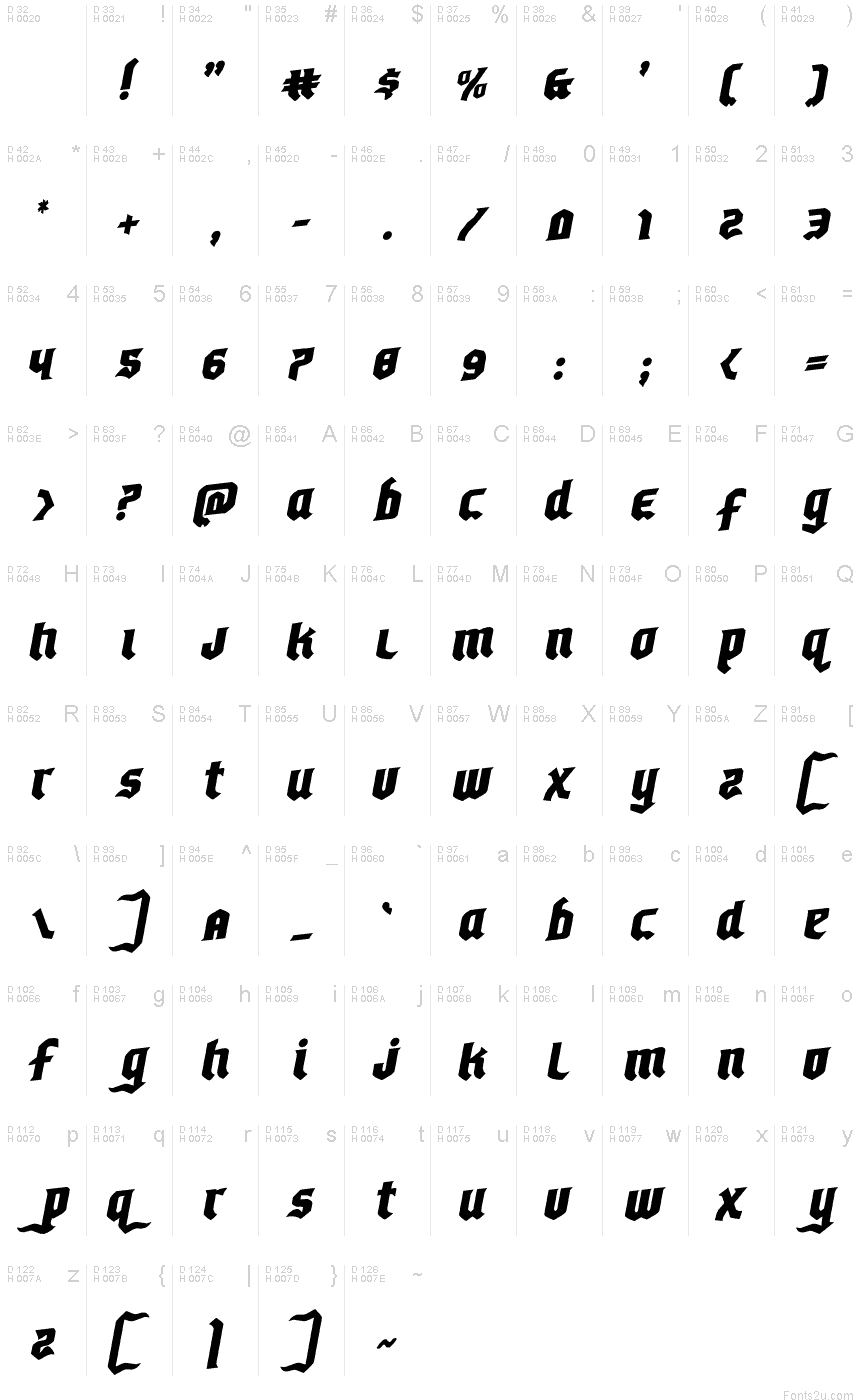
Empire Crown Rotalic Italic by Daniel Zadorozny of Iconian Fonts is a free medieval blackletter font with a forceful forward lean. Broad dark strokes break into hooked feet, split tips, and compact angular joins.
A concert poster is its strongest setting, especially for metal, gothic rock, or theatrical events. The same severe shapes suit fantasy game packaging and historical publishing. It is most convincing when the lettering itself supplies the medieval drama.
Empire Crown Rotalic